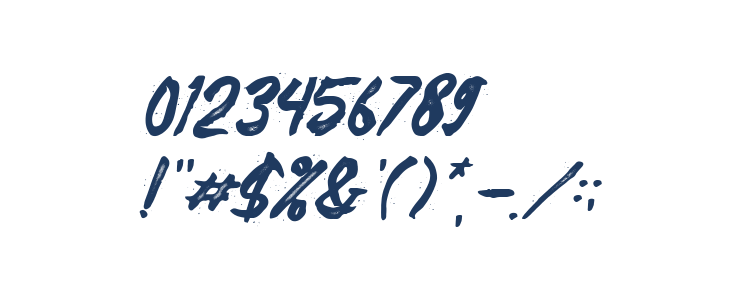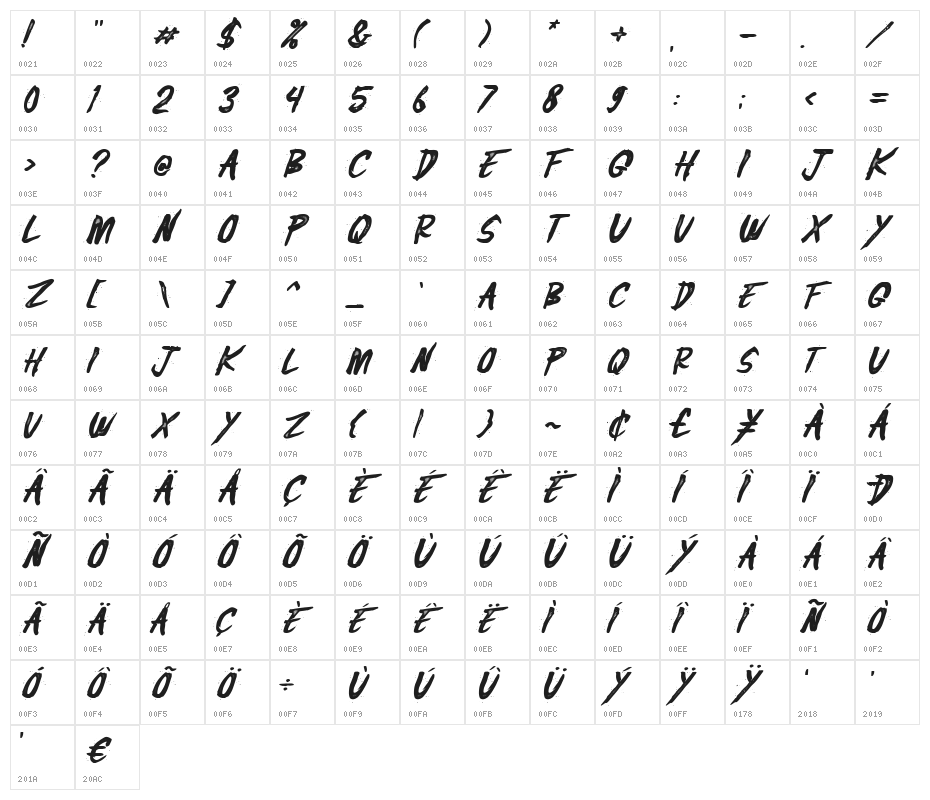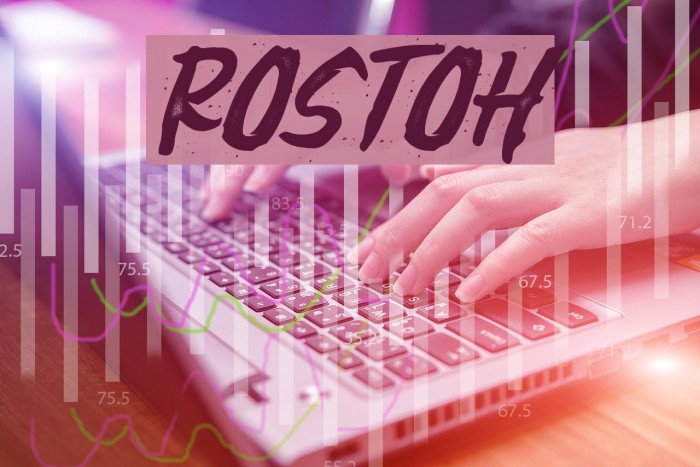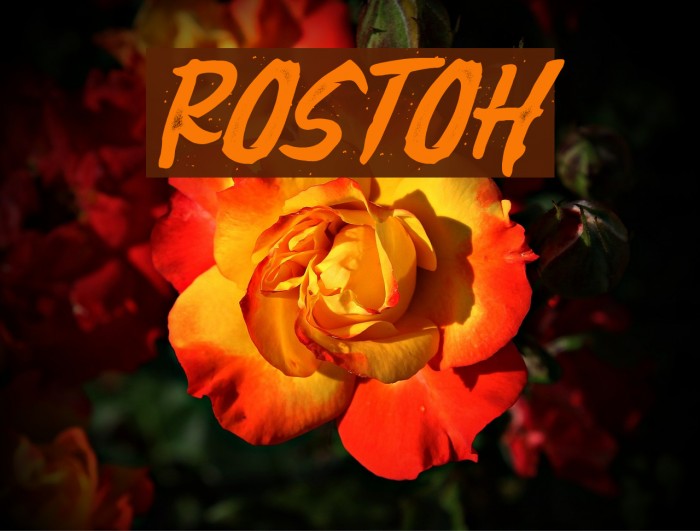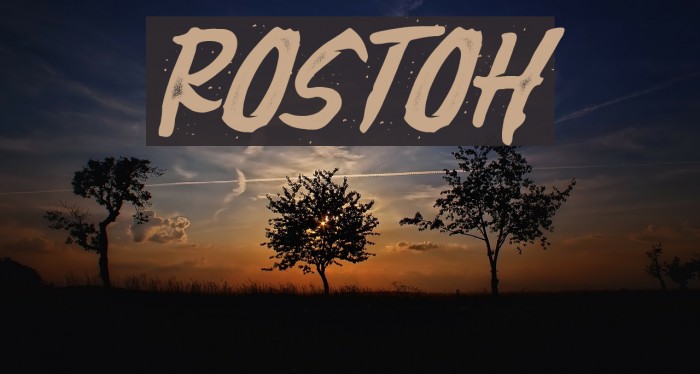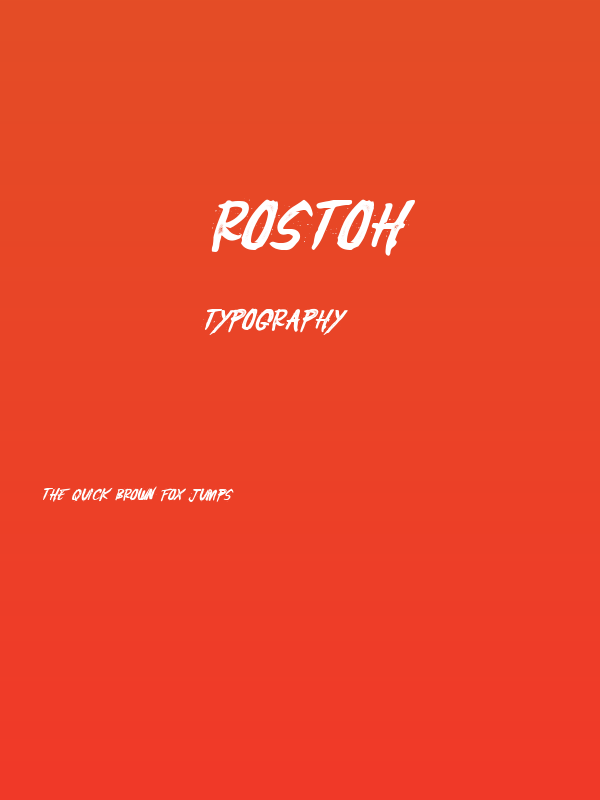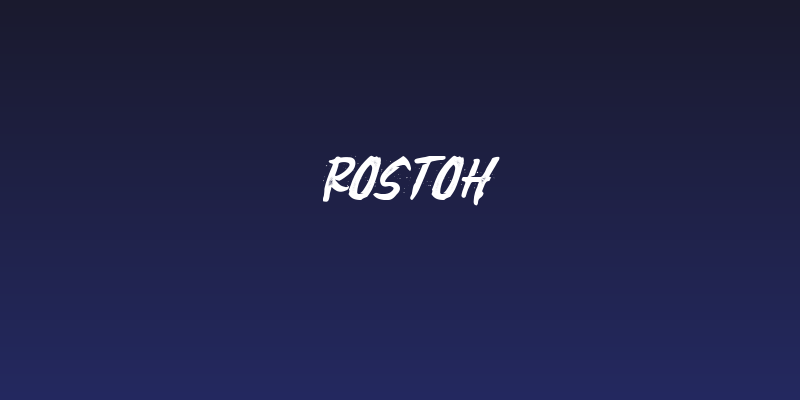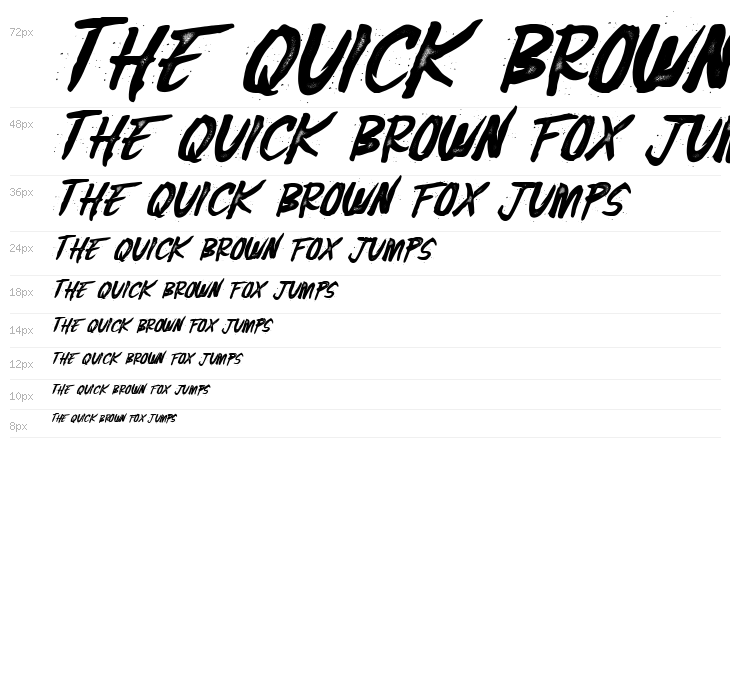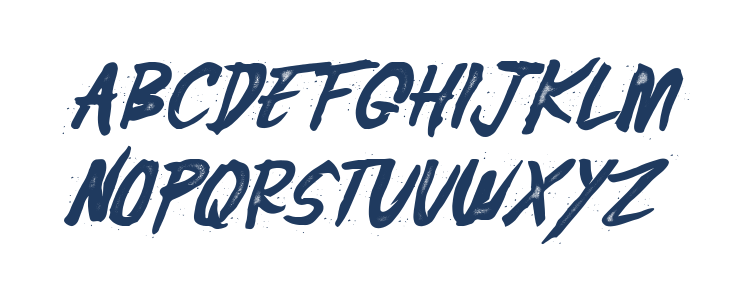
rostoh Font
rostoh Description
This font exudes a bold, energetic style with its brush-like strokes and dynamic presence. The characters are crafted with a sense of movement, featuring thick and thin variations that give it a hand-painted appearance. The uppercase and lowercase letters maintain a consistent flow, while the numbers and special characters complement the overall aesthetic. Its rough edges and slight imperfections add a touch of authenticity, making it ideal for projects that require a personal, artistic touch. The font's expressive nature makes it stand out, capturing attention with its unique flair.
| Proposed Projects | Ideal for branding, posters, album covers, and any design needing a bold, artistic touch. |